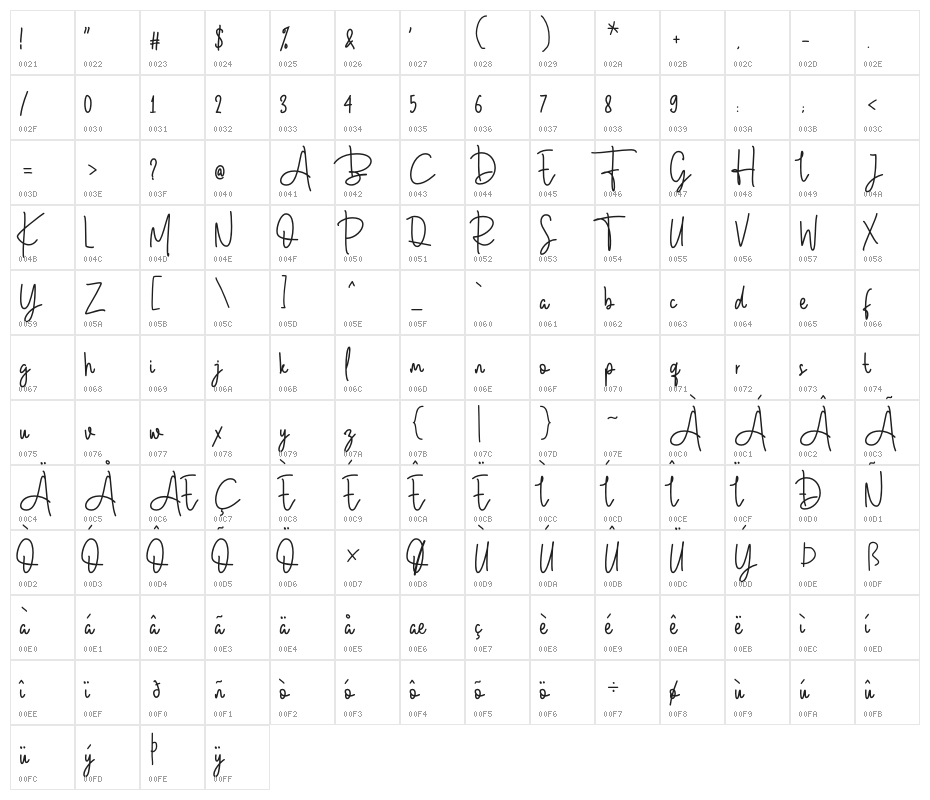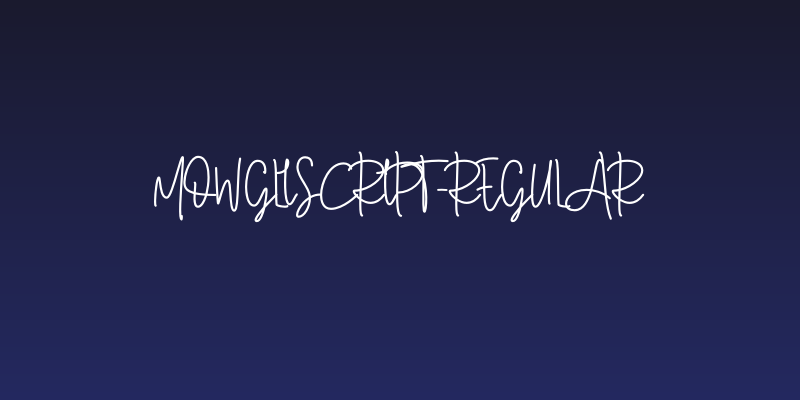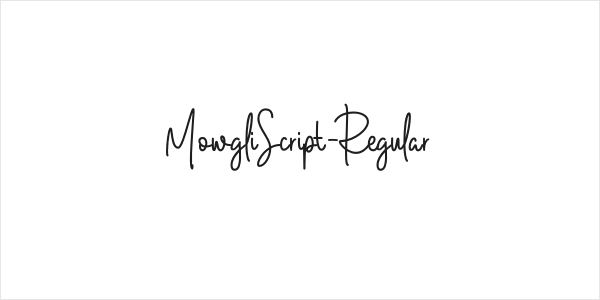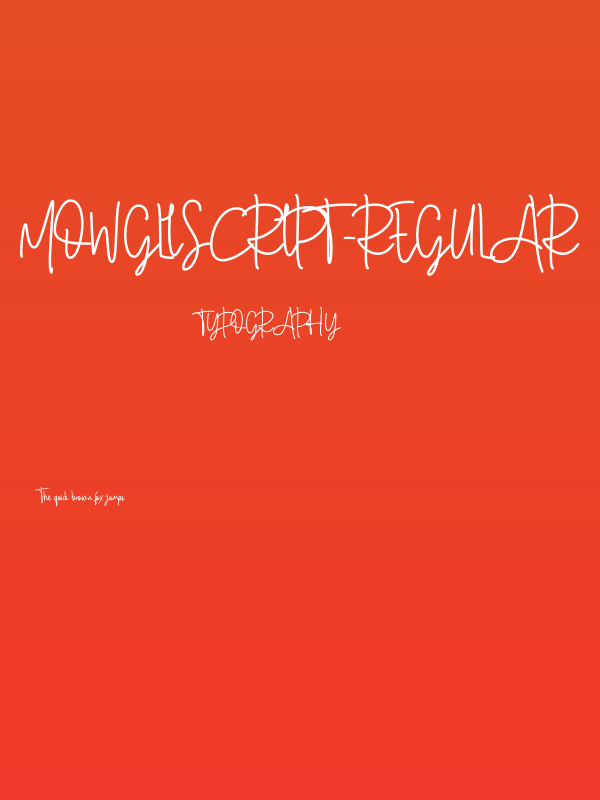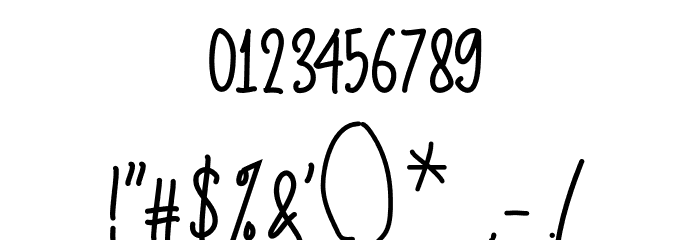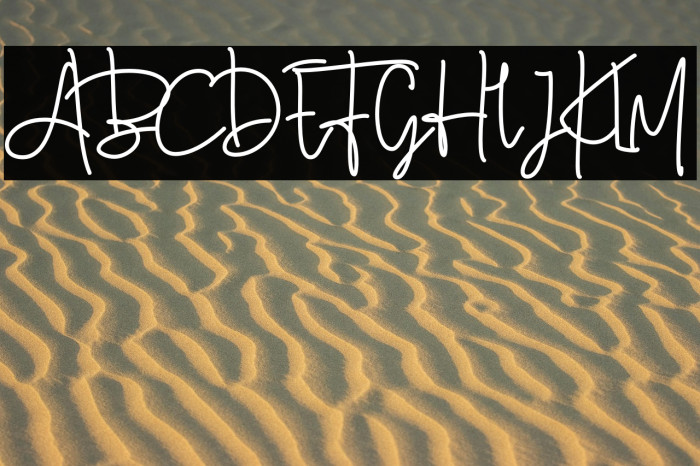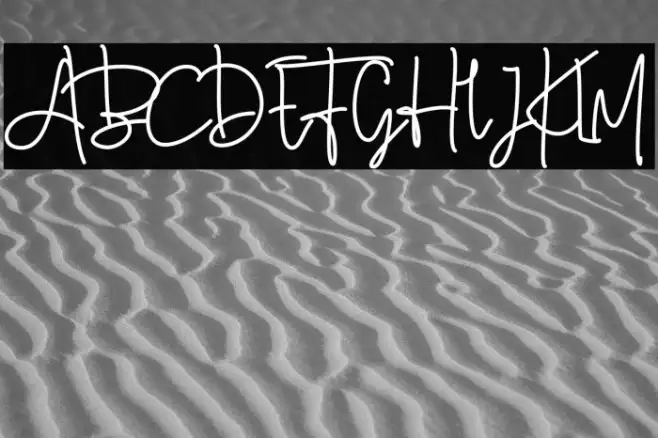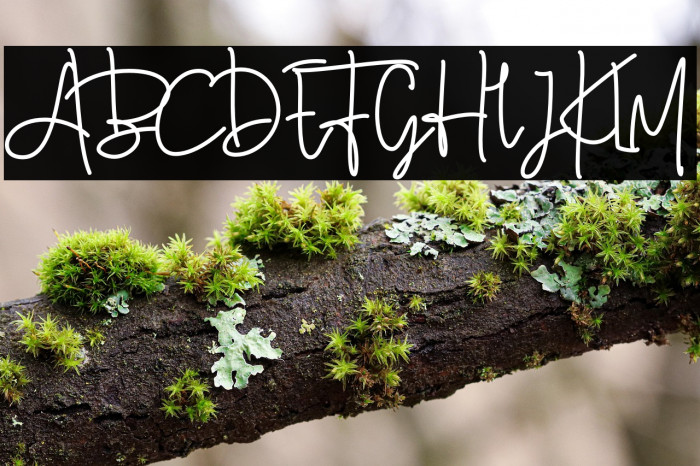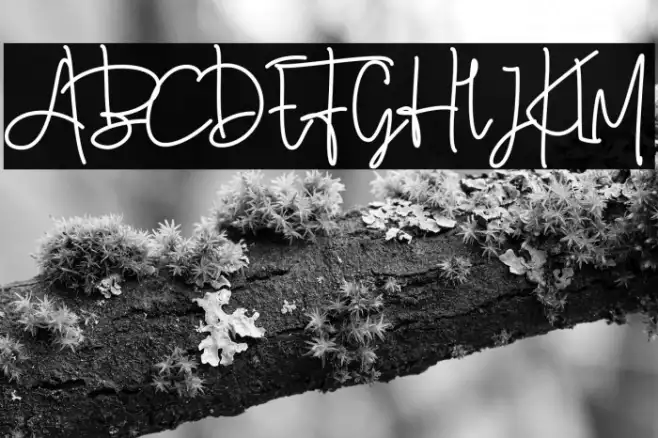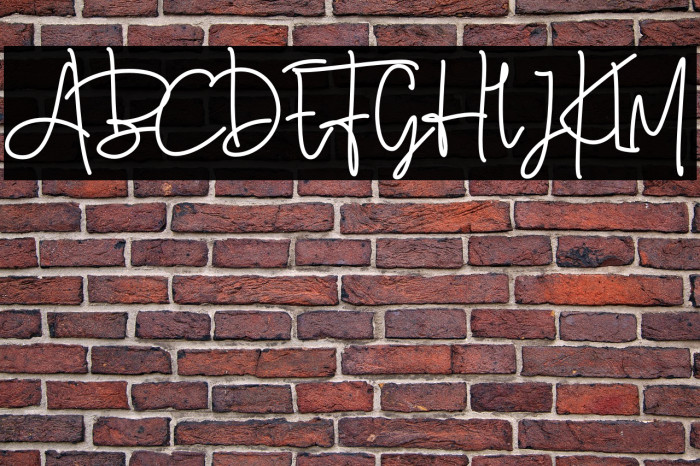
MowgliScript-Regular Font
MowgliScript-Regular Description
This font features a playful and energetic handwritten style, characterized by its flowing, cursive-like strokes. The uppercase letters are tall and slightly narrow, with a whimsical flair that adds a sense of movement and dynamism. The lowercase letters maintain a consistent style, with smooth curves and a casual, informal appearance. The numerals are well-integrated into the overall design, matching the playful and lively aesthetic. Special characters are creatively designed, maintaining the font's unique personality. This font is ideal for projects that require a personal touch or a sense of creativity and fun.
| Font Family | Mowgli Script |
| Overall Style | Playful, Creative |
| Proposed Projects | Ideal for greeting cards, invitations, children's books, and creative branding projects. |